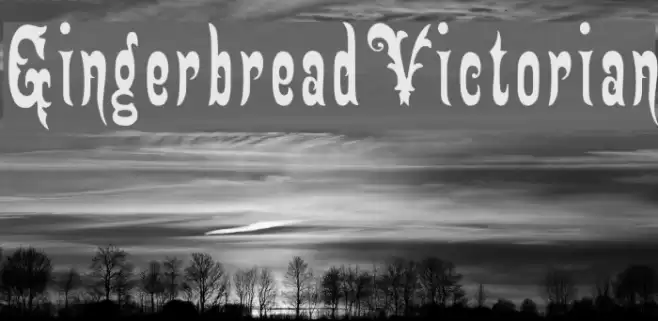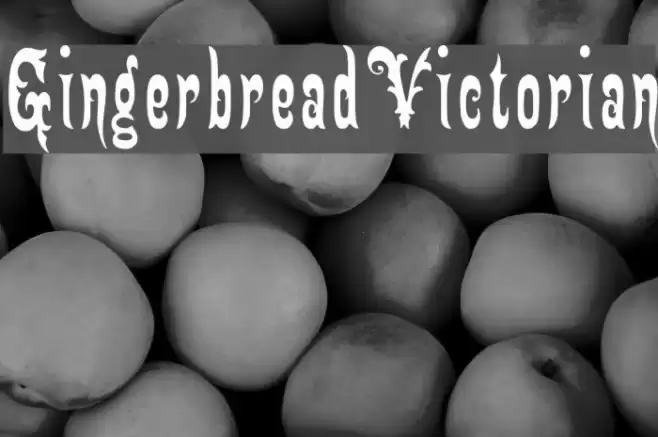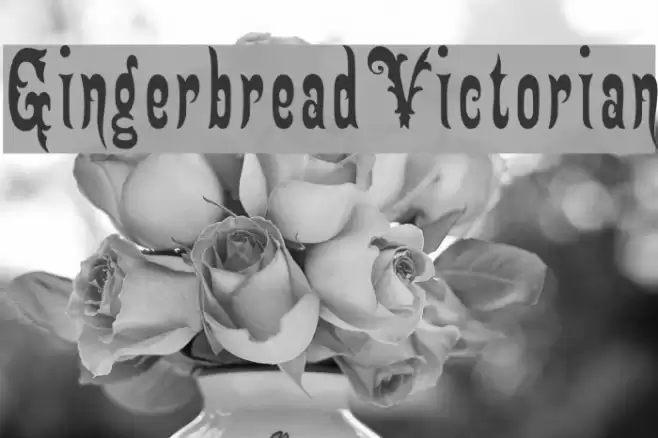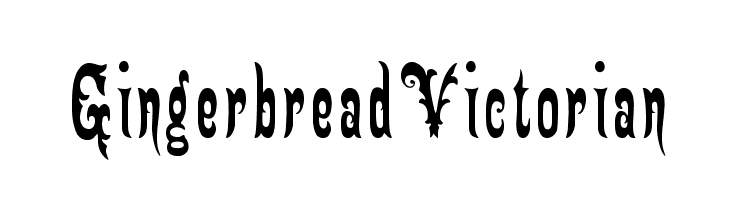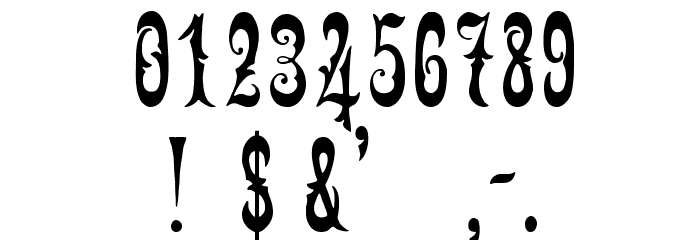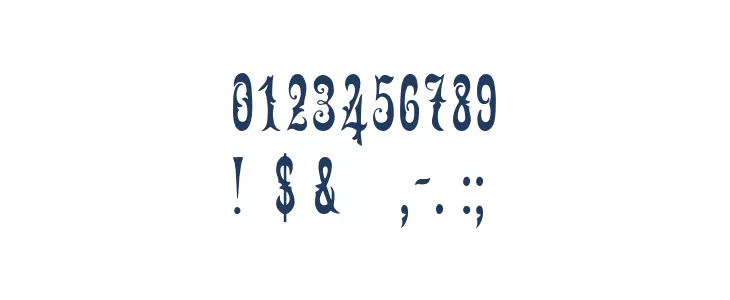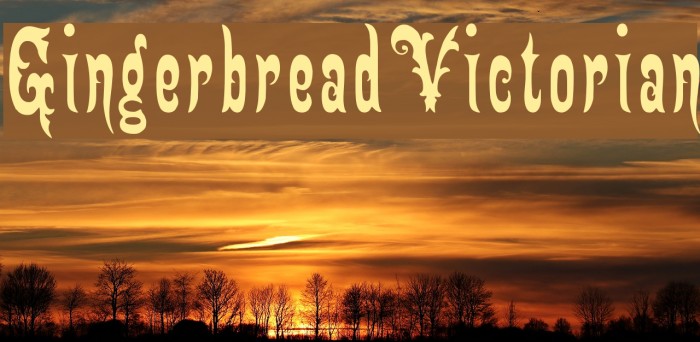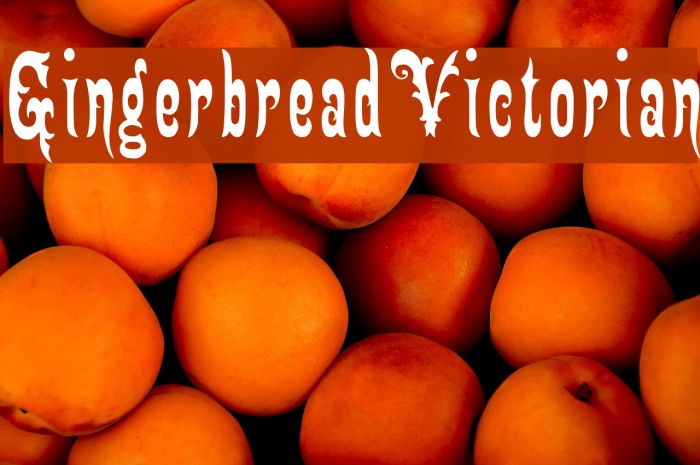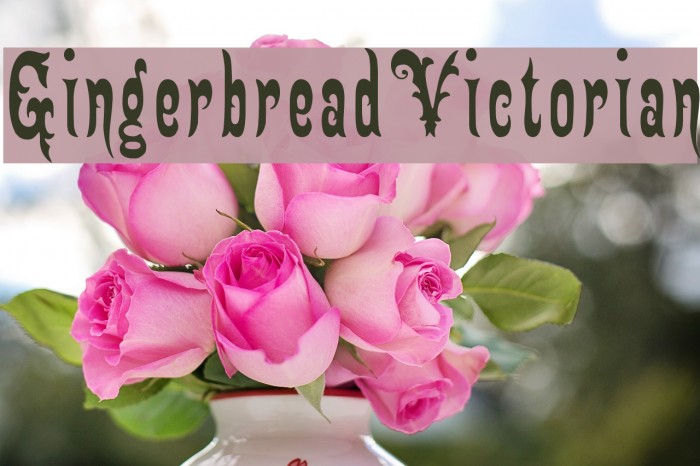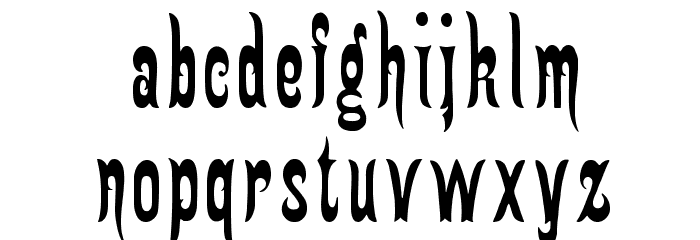
GingerbreadVictorian Font
GingerbreadVictorian Description
This font embodies a whimsical and ornate style, reminiscent of Victorian-era design. Each character is adorned with intricate flourishes and decorative elements, giving it a unique and elaborate appearance. The uppercase letters are particularly embellished, with swirling extensions and pointed serifs that create a sense of elegance and grandeur. The lowercase letters maintain a similar decorative theme but with slightly less complexity, ensuring readability. Numbers and special characters are equally stylized, making them suitable for thematic and artistic projects. The overall design is bold and eye-catching, perfect for creating a vintage or historical aesthetic.
An ornate, Victorian-inspired font with intricate flourishes and decorative elements from Uncategorized fonts.
- Proposed Projects: Ideal for vintage-themed posters, invitations, book covers, and branding that requires a historical or whimsical touch.
- Overall Style: Vintage
- Use Case: Headlines, Logos, Decorative text